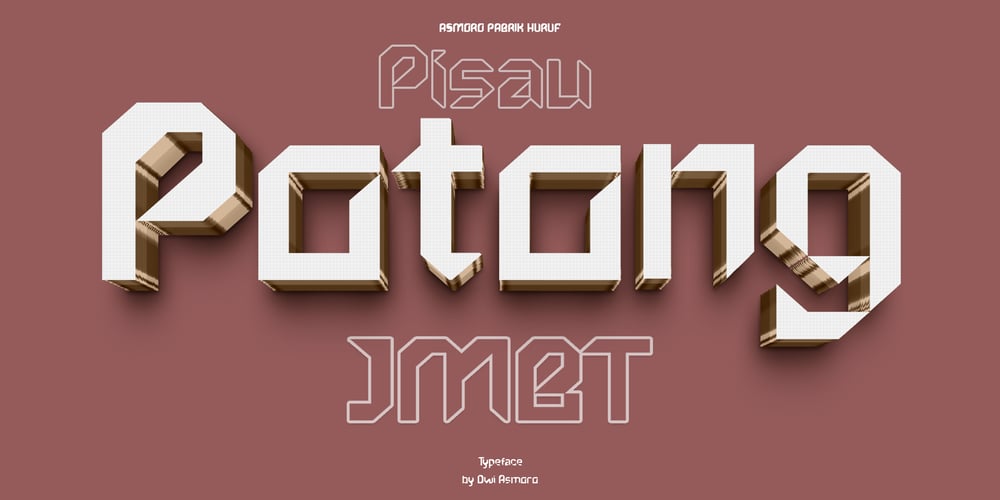
Pisau Potong JMBT Font Family was designed by Dwi Asmoro and published by Asmoro Pabrik Huruf. Pisau Potong JMBT contains 3 styles and family package options. Pisau Potong JMBT is a bold and precise typeface crafted with an algorithm I developed, featuring sharp, clean lines and geometric cuts that mimic the precision of a cutter blade. Its sharp angles and dynamic forms make it perfect for modern, industrial, or tech-focused designs.Designed for strong visual impact, Pisau Potong JMBT works well in both display and body text, offering clarity and legibility in various sizes. Ideal for branding, logos, packaging, and high-tech advertising, it pairs well with traditional typefaces, creating a striking contrast between the past and the future.With multilingual support, this typeface is versatile and ensures your designs communicate with a broad audience. Whether for a futuristic brand or a high-visibility project, Pisau Potong JMBT delivers precision and style.